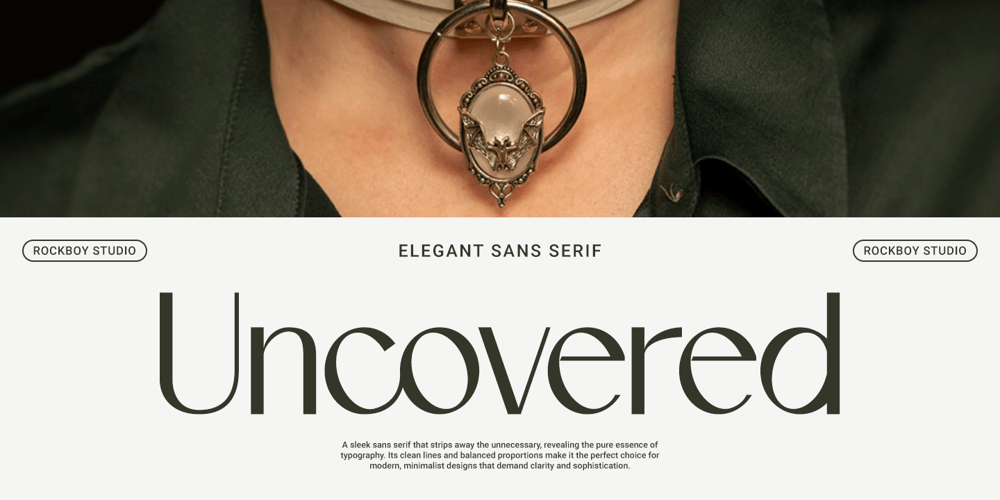
Uncovered
Uncovered font
Uncovered Font Family was designed by Hayinah and published by Rockboys Studio. Uncovered contains 1 styles and family package options. Uncovered is a sleek sans serif typeface characterized by its modern and stylish design. Its clean lines and balanced proportions make it suitable for contemporary branding, editorial design, and digital applications. With a minimalist aesthetic, Uncovered offers versatility and readability, making it ideal for both headings and body text. The typeface often features subtle geometric influences and refined details, providing a sophisticated yet approachable appearance.